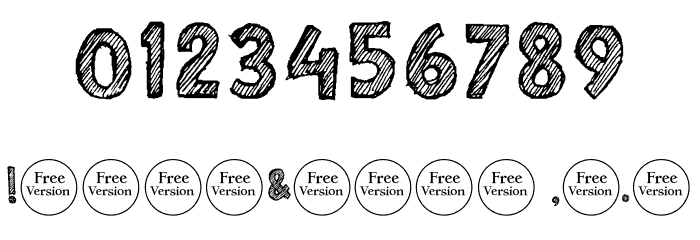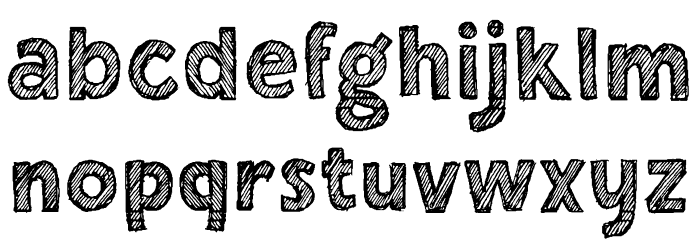
Chalkboy Regular Font
This font features a playful, hand-drawn style reminiscent of chalkboard writing. Each character is outlined with a textured, sketch-like appearance, giving it a casual and informal feel. The uppercase and lowercase letters maintain consistent proportions, while the numbers and special characters follow the same artistic style. The font's unique texture adds a dynamic and engaging quality, making it suitable for creative and informal designs. Its bold strokes and irregular edges contribute to its distinctive, handcrafted look.
A playful, hand-drawn font with a chalkboard texture and sketch-like appearance.
• Proposed Projects: Ideal for educational materials, children's books, playful branding, and creative posters.
• Category: Decorative/Display
• Bold: Yes
• Italic: No
• Weight: Bold
• Width: Normal
• Character Spacing: Normal
• Contrast: Medium
• Overall Style: Playful, Handcrafted
• Use Case: Headlines, Posters, Creative Branding